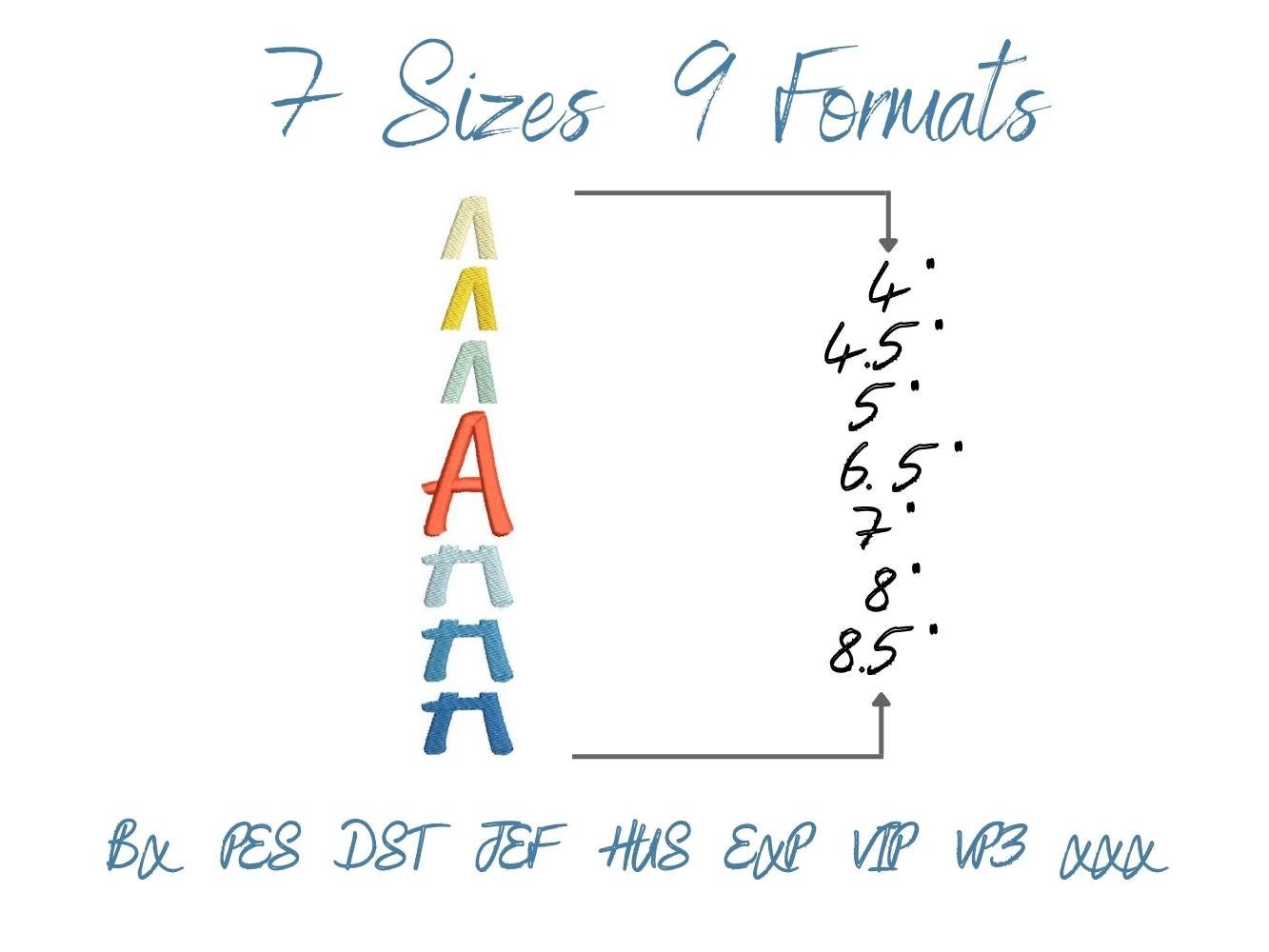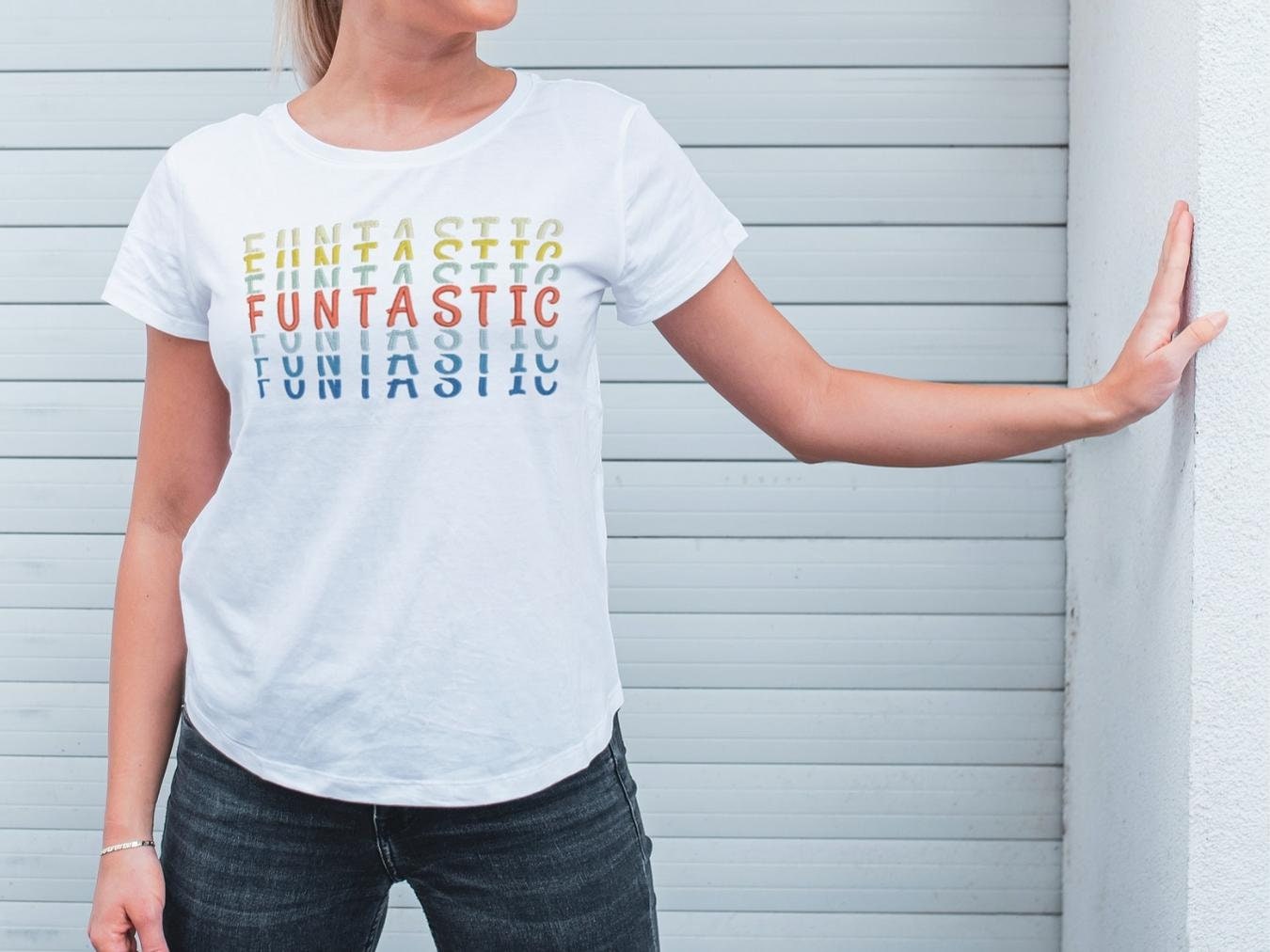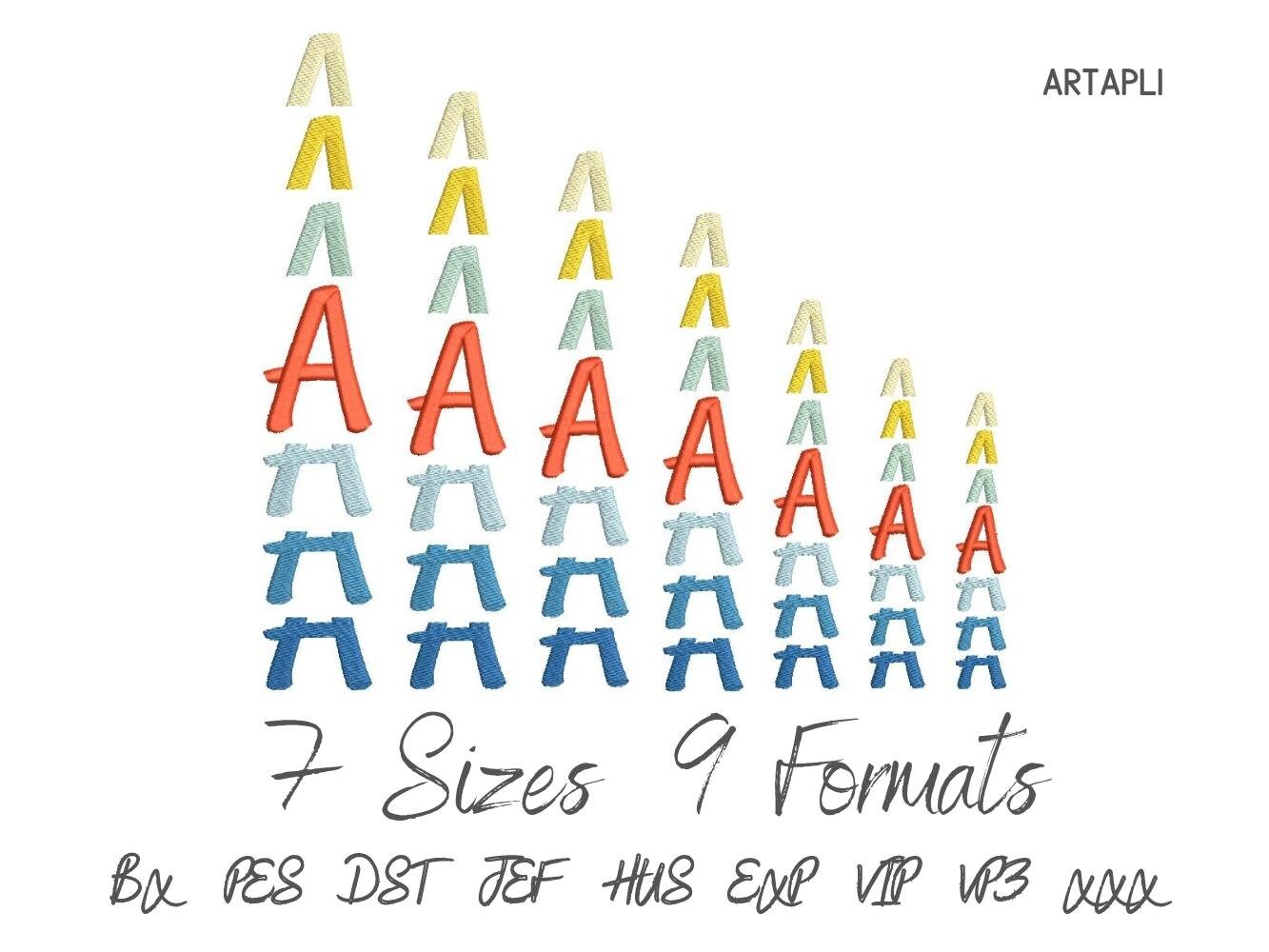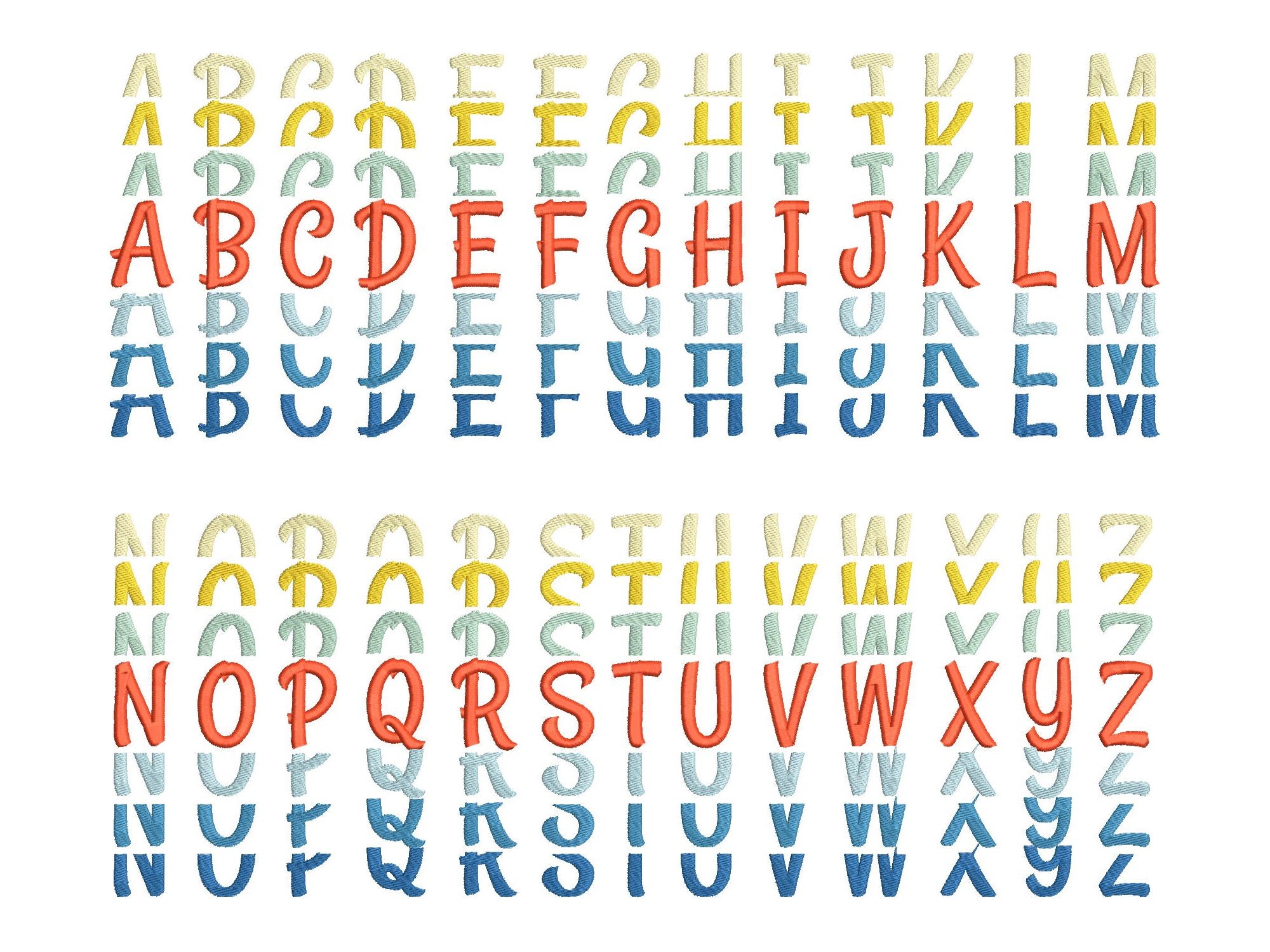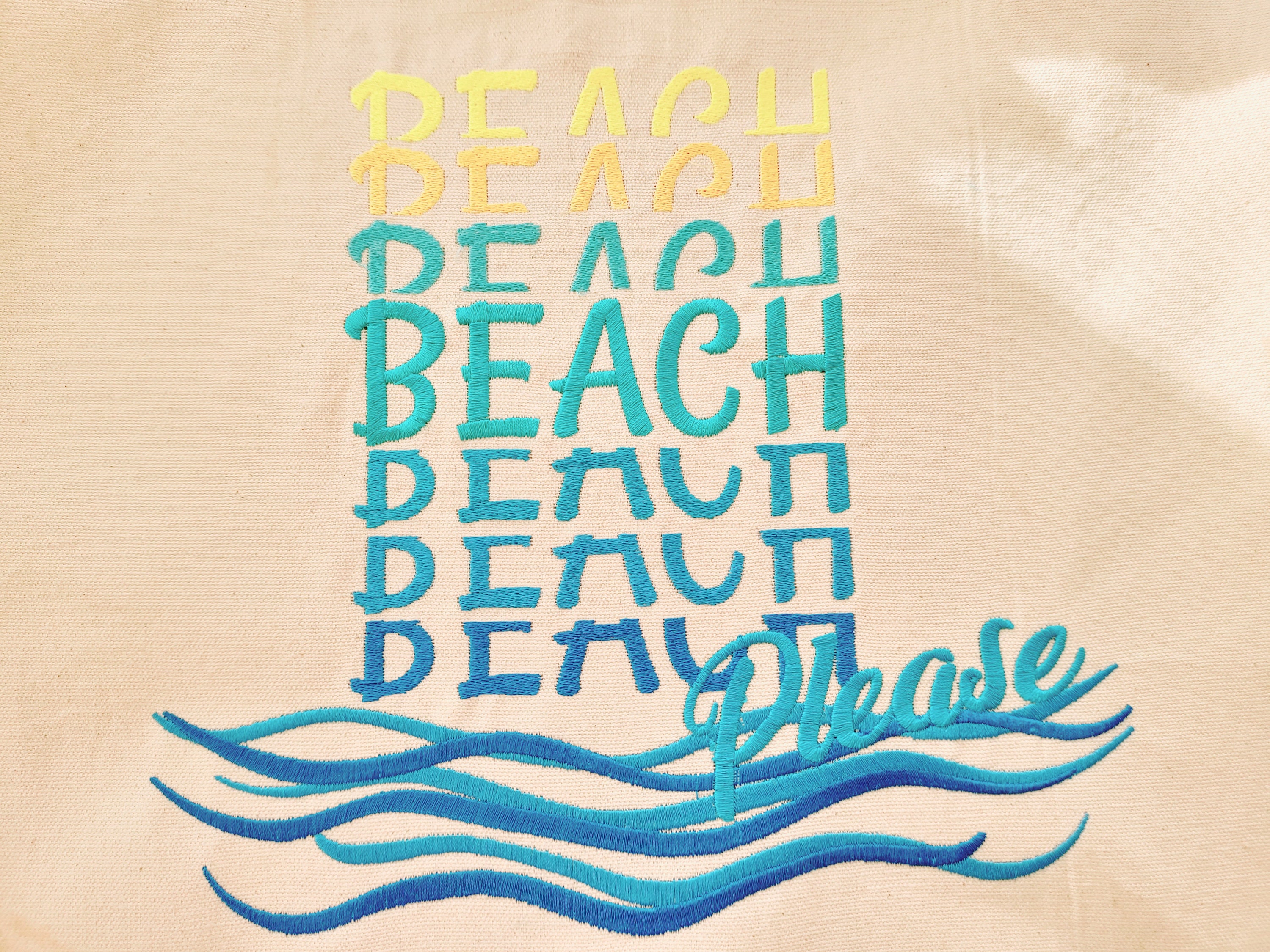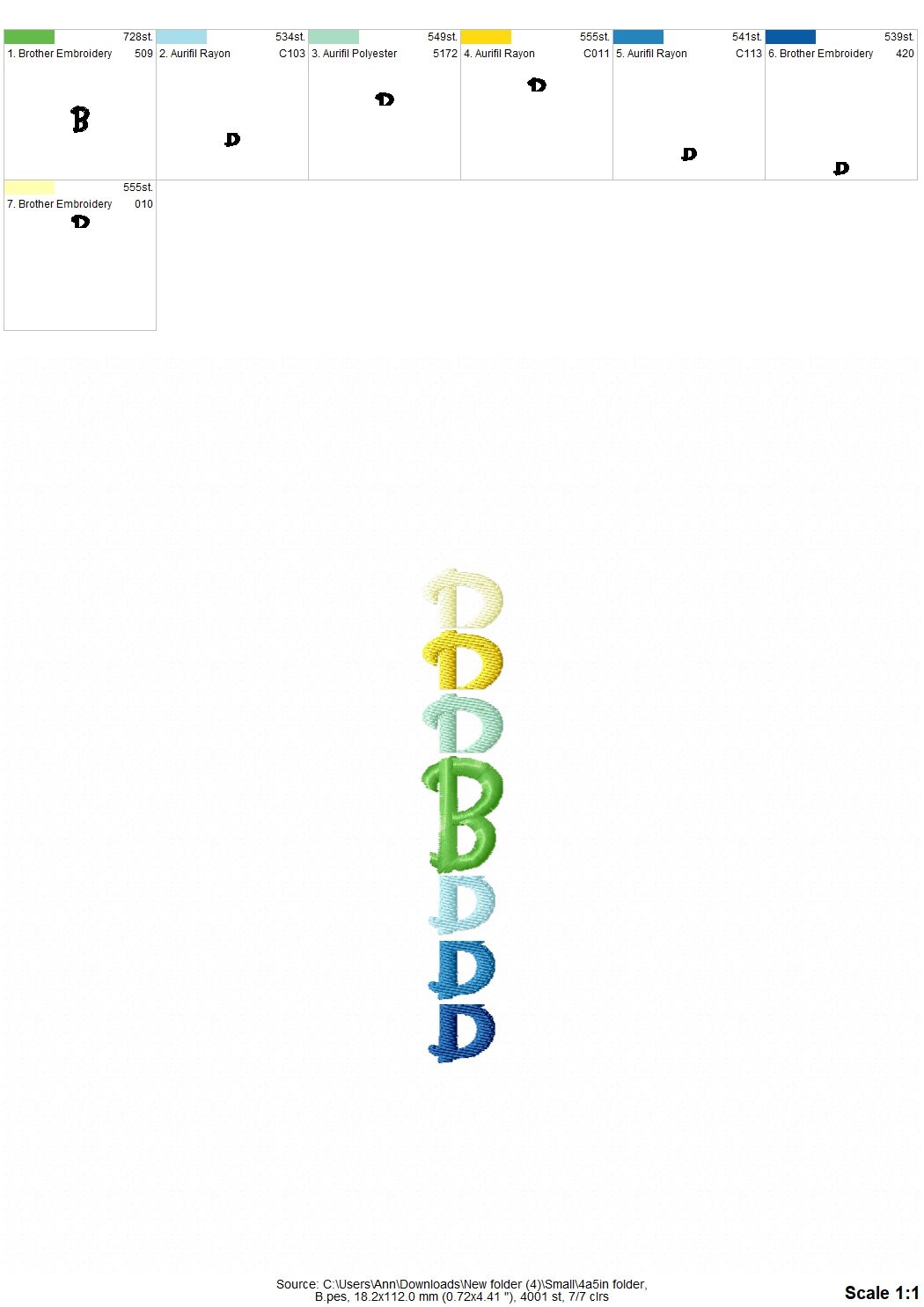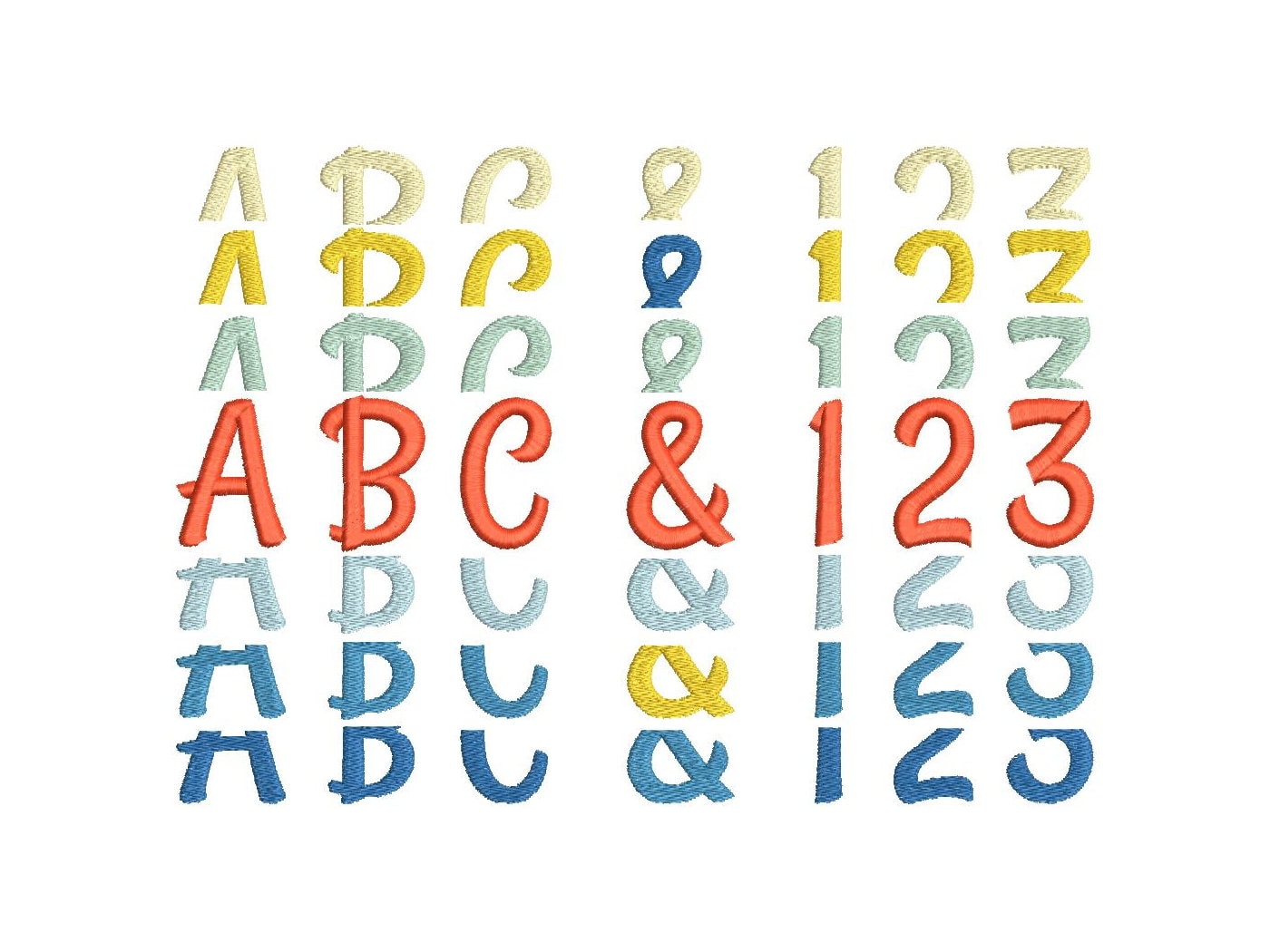
Fun kids Stacked Font satin stitch and fill stitch trend fashion alphabet letters, awesome machine embroidery designs in many sizes, BX included
The whole alphabet:
uppercase A-Z, numbers 0-9, and special marks & . , /